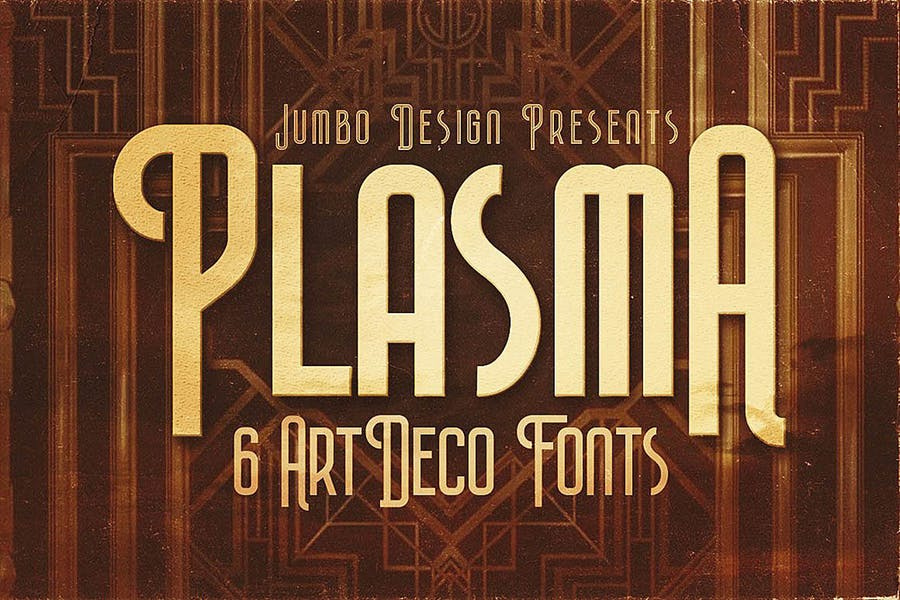
Plasma - ArtDeco Style Font
Plasma - ArtDeco Style Font is perfect for luxury cocktail lounges, sophisticated jazz venues, elegant Art Deco hotels, glamorous fashion brands, prestigious entertainment venues, upscale dining establishments, refined cultural institutions, classic theater productions, distinguished wine collections, and sophisticated metropolitan lifestyle brands.
Plasma - ArtDeco Style Font creates excitement because it embodies the electric glamour and geometric sophistication of the Art Deco era with its streamlined letterforms and jazz-age inspired character design. The font's angular elegance and metropolitan aesthetic instantly convey cultural refinement and sophisticated energy, making any brand appear timelessly glamorous and authentically sophisticated. Its carefully crafted deco details and electric character create an immediate sense of cultural electricity that captivates audiences seeking sophisticated experiences, glamorous quality, and products that celebrate the transformative power of Art Deco elegance and metropolitan sophistication.
The Plasma - ArtDeco Style Font family includes multiple weights and styles: Regular, Bold, Light, Medium, Italic, Condensed, Extended, Electric, Glamorous, and Sophisticated versions. Each variant maintains the font's signature Art Deco character while offering different levels of geometric styling and cultural authenticity suitable for various luxury and entertainment applications.
This electrifying typeface brings the authentic spirit of Art Deco glamour into contemporary luxury design with remarkable sophistication and cultural appeal. Plasma - ArtDeco Style Font Free Download provides luxury brands and cultural organizations with access to premium Art Deco-inspired typography that embodies the essence of jazz-age elegance and metropolitan excellence. The font's electric design and cultural authenticity make it ideal for businesses seeking to establish meaningful connections with sophisticated audiences who appreciate Art Deco heritage, glamorous experiences, and the transformative power of cultural elegance that defined an era of artistic innovation. Whether you're creating branding for luxury establishments, designing materials for cultural venues, developing communications for entertainment organizations, or producing content for sophisticated lifestyle brands, this font delivers the authentic Art Deco atmosphere that resonates with audiences seeking genuine cultural experiences, glamorous quality, and the electric sophistication that comes from embracing authentic Art Deco heritage. Its versatile design ensures outstanding performance across both elegant printed materials and sophisticated digital cultural platforms while maintaining the character of authentic Art Deco typography. The font excels in applications requiring cultural credibility and glamorous appeal. Luxury professionals appreciate its ability to convey Art Deco authenticity while remaining highly functional for various cultural communications and sophisticated promotional materials. The comprehensive character set includes Art Deco symbols and extensive international language support, making it perfect for global luxury brands and international cultural organizations seeking to communicate authentic jazz-age culture, Art Deco excellence, and sophisticated glamour to diverse worldwide audiences who embrace cultural sophistication, appreciate Art Deco aesthetics, and value the transformative power of genuine Art Deco culture that created lasting artistic legacy through geometric innovation, glamorous design, and the timeless elegance of jazz-age sophistication that continues to inspire contemporary luxury and cultural excellence.